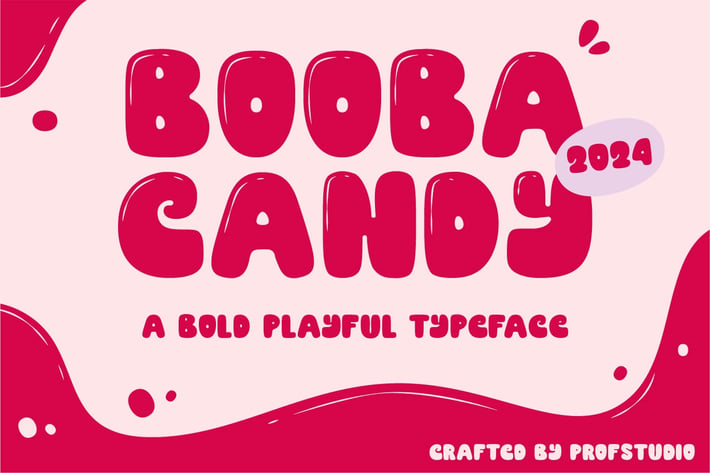
Booba Candy - A Bold Playful Typeface
Booba Candy - Typeface is a playful display typeface. Its design is inspired by the shapes of bubbles and Balloon. The font has a light, airy feel, perfect for creative projects.
Key Features Each character in Booba Candy mimics a bubbly and Candy form. The round edges convey a soft and friendly vibe. This font is versatile, suitable for both digital and print media. It’s easy to read, making it great for headings and logos.